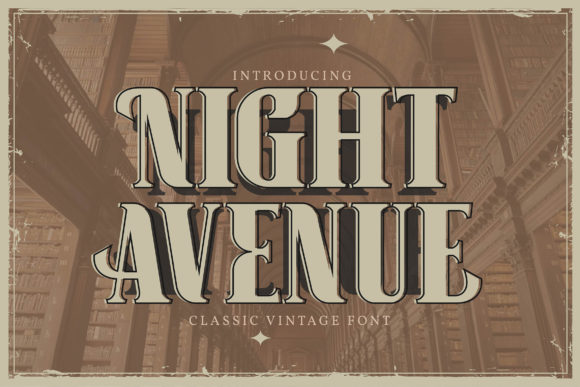
Embrace the boldness and assertive spirit of Night Avenue, the captivating serif font that will ignite your creativity and leave a lasting impression on your audience. Immerse yourself in the world of typography with this exquisite font, meticulously crafted by the skilled hands of Vunira.
Night Avenue's bold strokes and elegant curves exude confidence and sophistication, making it the perfect choice for those seeking to make a statement. Its versatility knows no bounds, lending itself effortlessly to a myriad of projects, from eye-catching logos and branding materials to stunning invitations and captivating social media posts.
With Night Avenue in your arsenal, you'll discover endless possibilities for self-expression and creativity. Whether you're designing an art CV, crafting a captivating presentation, or creating a unique and memorable brand identity, this font will elevate your work to new heights.
Its PUA encoding grants you effortless access to a treasure trove of glyphs and swashes, empowering you to unleash your imagination and add an extra touch of flair to your designs. Experience the transformative power of Night Avenue today and unlock a world of typographic brilliance.